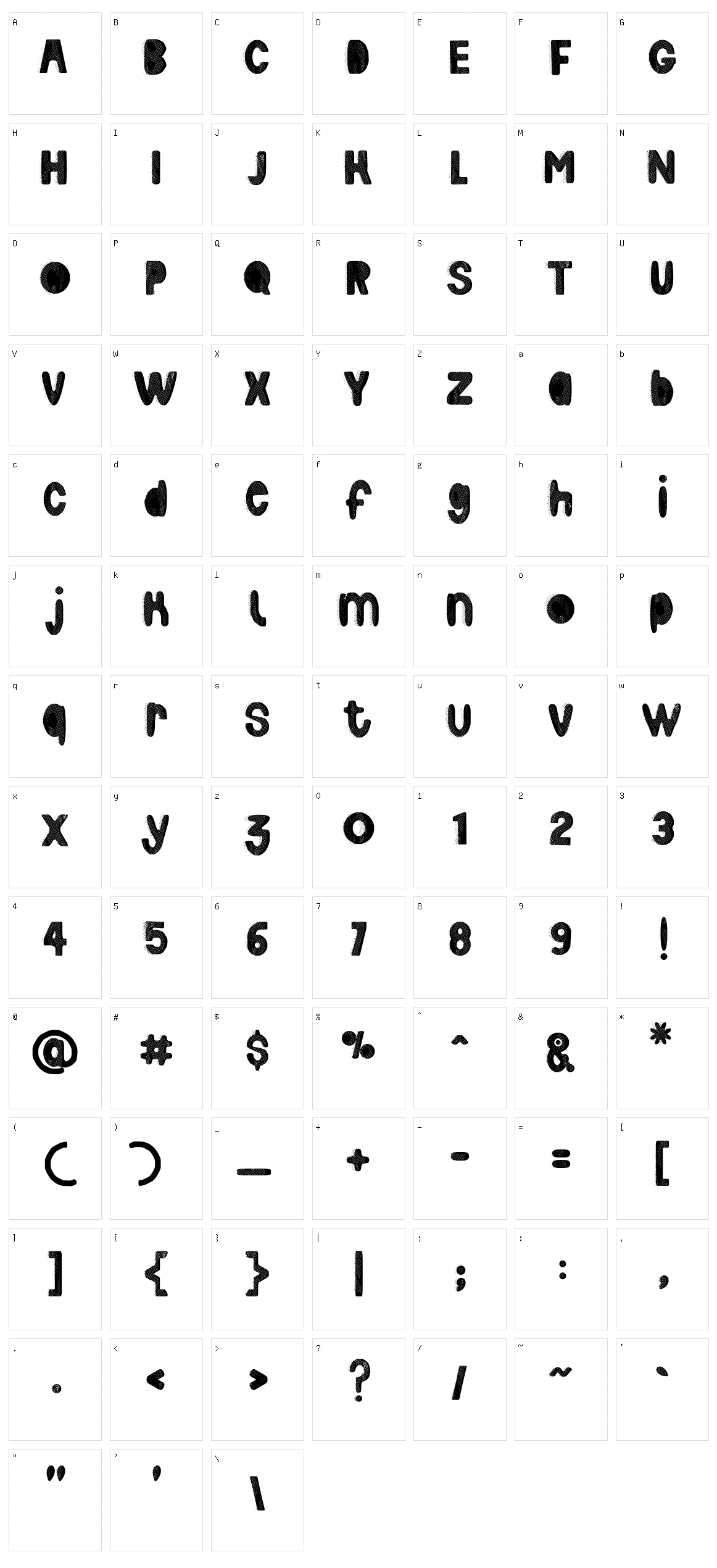
The free font Faustpress is carefully designed by paintblack, showcasing a thoughtful balance of creativity and usability and falls under the Eroded font style. When you download the ZIP file, it contains only 369.26 KB of font files, making it lightweight and quick to download. Please review the license details below to understand permitted usage and distribution rights. If license information is not available, we recommend using this font for personal projects only or contacting the author directly for commercial usage permissions.
Faust(press) font par paintblack 2018.